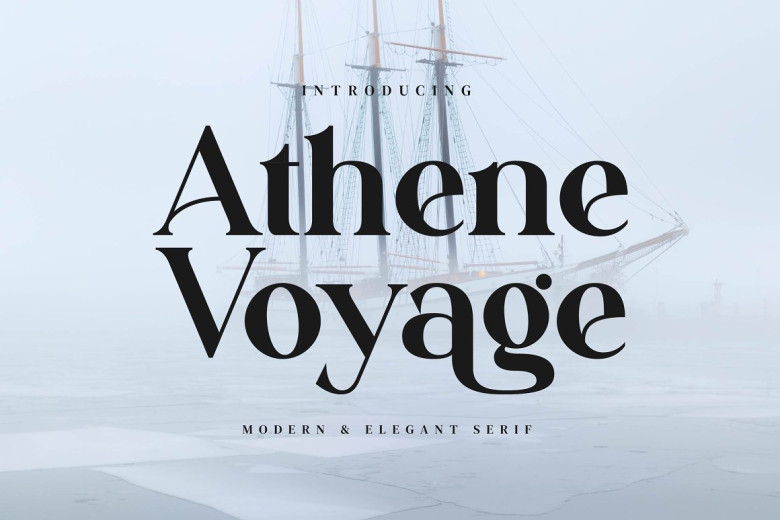
Athene Voyage Font
Athene Voyage Elegant Ligature Typeface was inspired by a minimalist logo. Suitable for designing brochures, templates and videos as well as branding for advertising logos and more, Athene Voyage Elegant Ligature Typeface makes an excellent addition to your graphic arsenal.
Athene Voyage Serif Font